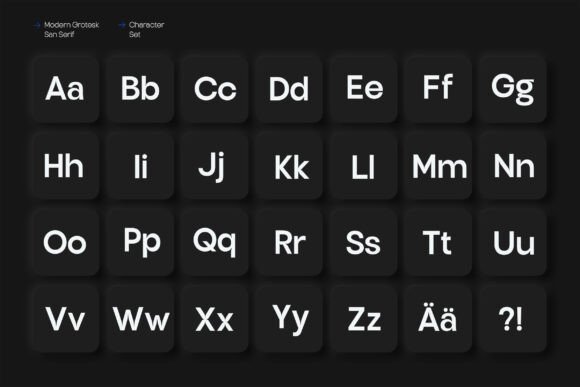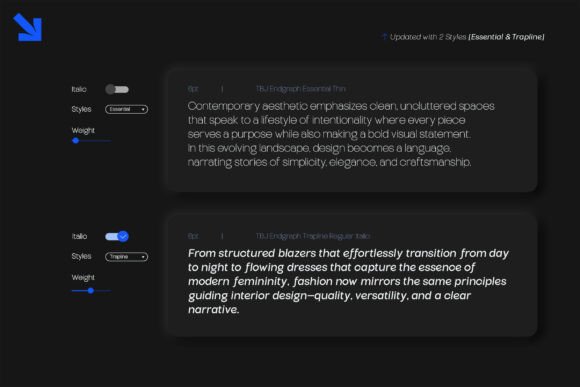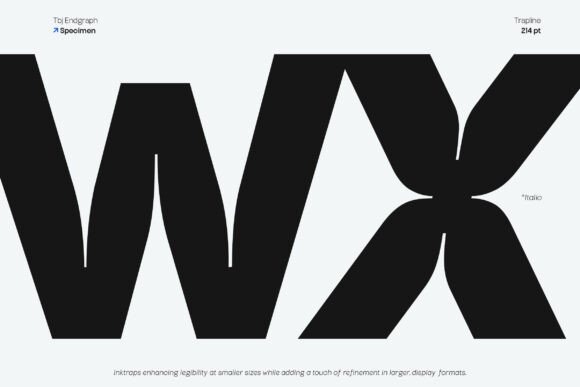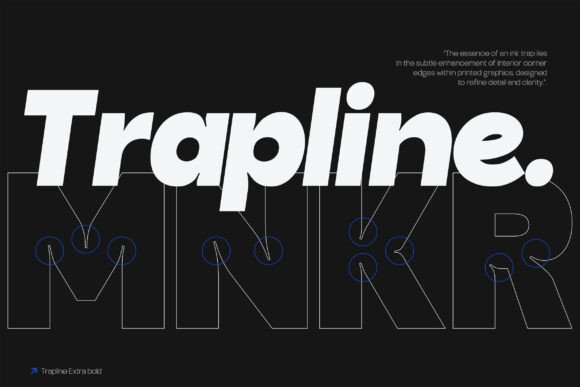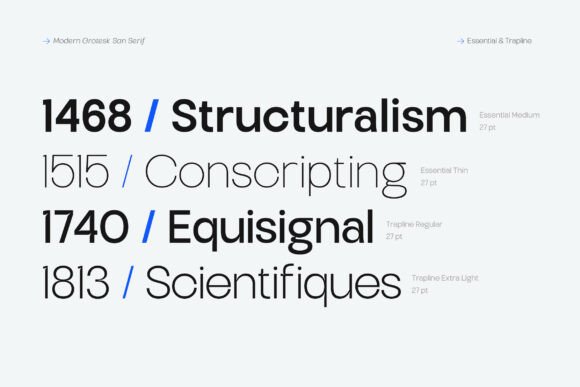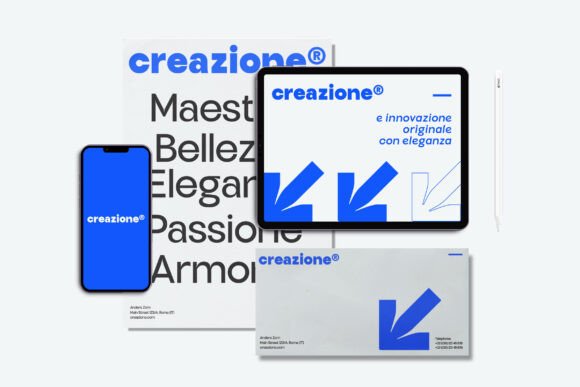
Introducing Endgraph Font: A Modern Sans-Serif for Designers
In the world of design, typography plays a crucial role in conveying messages and setting the tone for a brand or project. For designers seeking a modern sans-serif font that exudes professionalism and minimalism, Endgraph Font is an excellent choice. Specifically, the Endgraph Designer’s Edition – 3 Versatile Weights offers a versatile and elegant solution for a wide range of design applications.
What is Endgraph Font?
Endgraph Font is a contemporary sans-serif typeface crafted with the needs of modern designers in mind. Its clean lines, balanced proportions, and highly legible design make it perfect for both digital and print projects. Whether you’re working on a website, mobile app, or marketing materials, Endgraph Font provides a fresh and sophisticated look that elevates your design.
Key Features of Endgraph Designer’s Edition
The Endgraph Designer’s Edition stands out with its comprehensive set of features designed to offer flexibility and creativity:
- 3 Versatile Weights: The font comes in three carefully crafted weights: Light, Regular, and Medium. This range allows designers to use Endgraph Font across various projects, from elegant body text to impactful headlines, all within a single font family.
- 2 Unique Styles: Beyond the standard weights, Endgraph offers two distinctive styles, Essential and Trapline. These styles provide creative variations that can be used to differentiate headlines from supporting text or to add a unique touch to design elements.
- Italic Variant: To add dynamism and elegance to designs, the Endgraph Font includes an Italic variant. This addition enables designers to emphasize certain parts of the text or create a sense of movement and fluidity in their layouts.
Endgraph Font is not just another typeface; it’s a design tool that offers numerous benefits:
- Consistency Across Projects: With its range of weights and styles, Endgraph Font enables designers to maintain consistency across different projects and applications, ensuring a cohesive brand image.
- Enhanced Creativity: The unique styles and italic variant encourage experimentation and creativity, allowing designers to push the boundaries of conventional design and create distinctive works.
- Time and Cost Efficiency: Having multiple weights and styles within a single font family saves designers the time and cost associated with purchasing and managing multiple fonts.
- Legibility and Readability: Endgraph Font’s modern sans-serif design ensures high legibility on digital screens and readability in print, making it suitable for a wide range of applications, from web design to editorial projects.
Use Cases for Endgraph Font
The versatility of Endgraph Font makes it suitable for a myriad of design projects:
- Branding and Corporate Design: Create a lasting impression with a professional and modern typeface that reflects your brand’s values.
- Web and Mobile App Design: Enhance user experience with a clean and legible font that works well on various devices and screen sizes.
- Marketing and Advertising: Stand out with bold and creative typography that captures attention and communicates your message effectively.
- Print Design: From brochures and magazines to business cards and posters, Endgraph Font brings a touch of elegance and sophistication to any print project.
| Author | Taboja Studio |
Endgraph Designer’s Edition – 3 Versatile Weights is a powerful tool for designers and crafters looking for a modern sans-serif font that combines professionalism with creativity. Its range of weights, unique styles, and italic variant make it an excellent choice for a wide array of design applications. By incorporating Endgraph Font into your projects, you can achieve a balanced, elegant, and impactful design that resonates with your audience. Whether you’re a seasoned designer or just starting out, Endgraph Font is sure to elevate your design work to the next level.